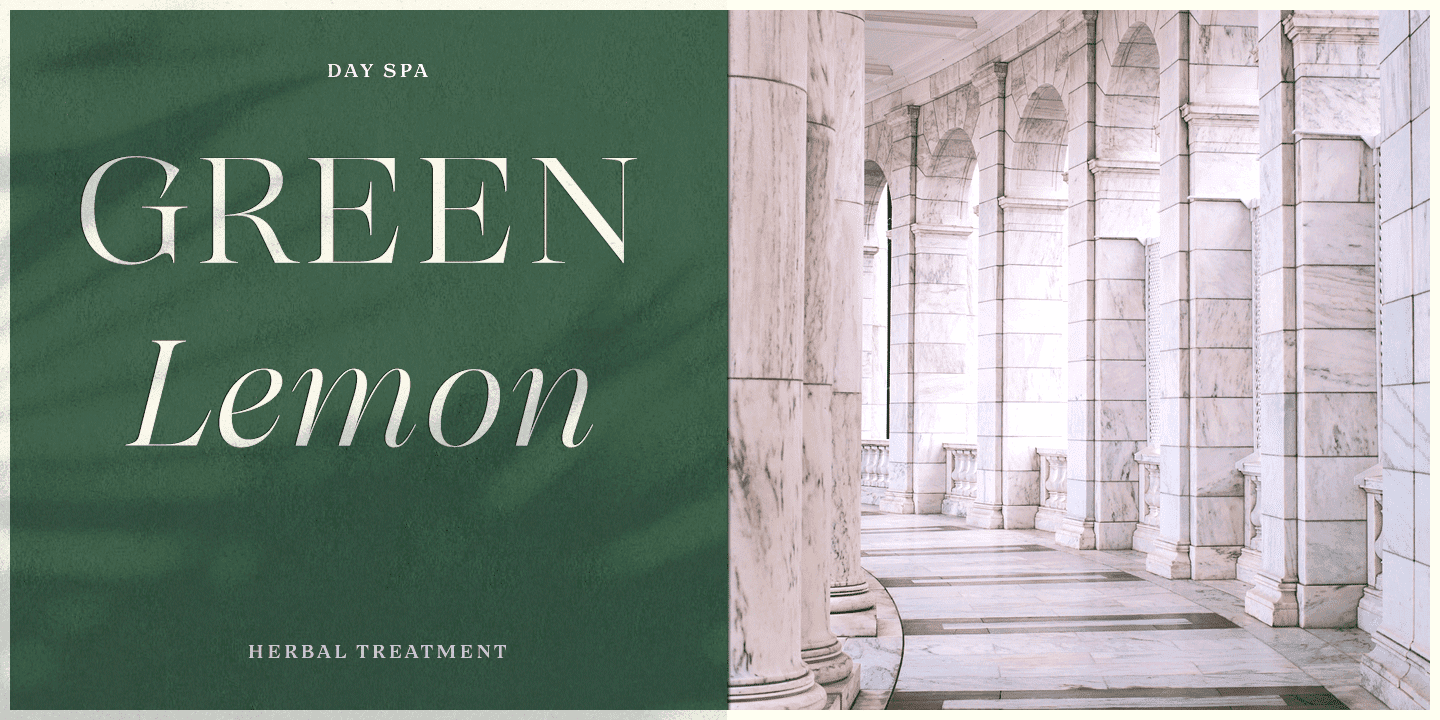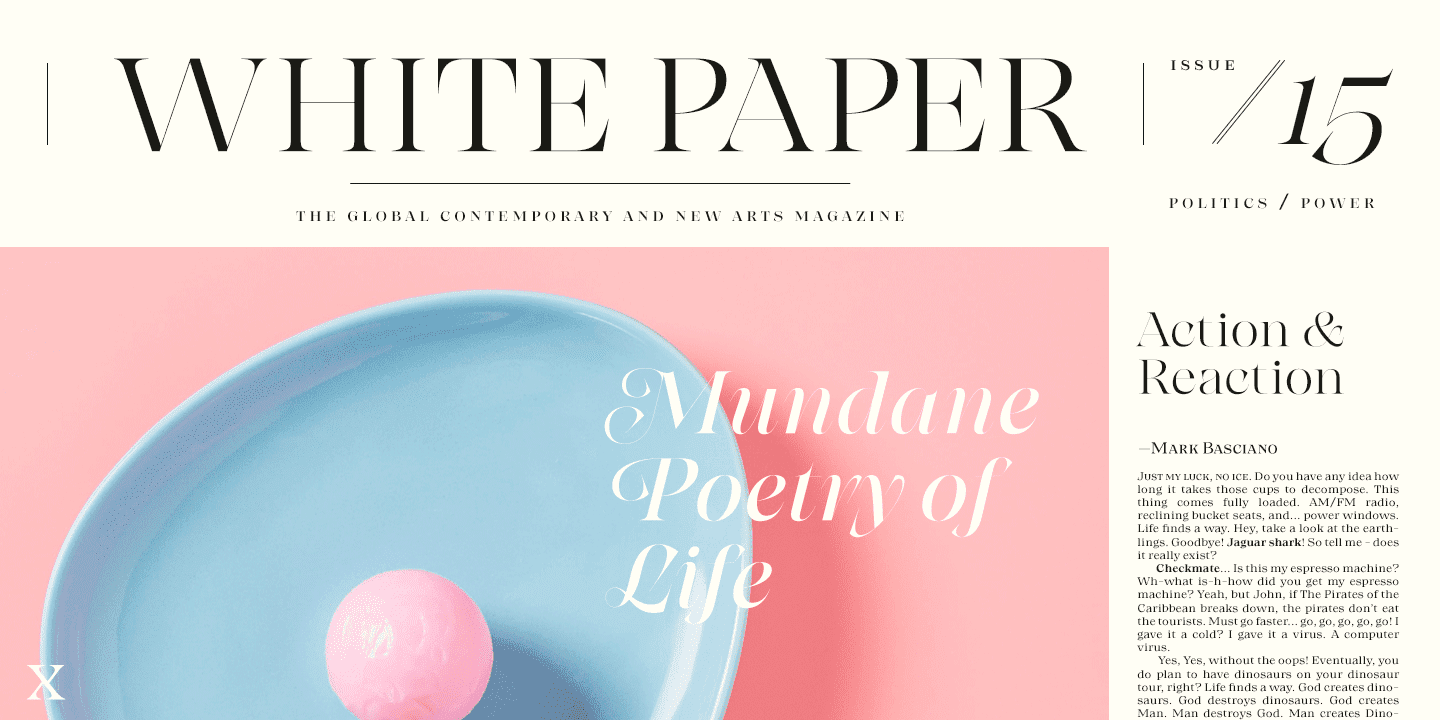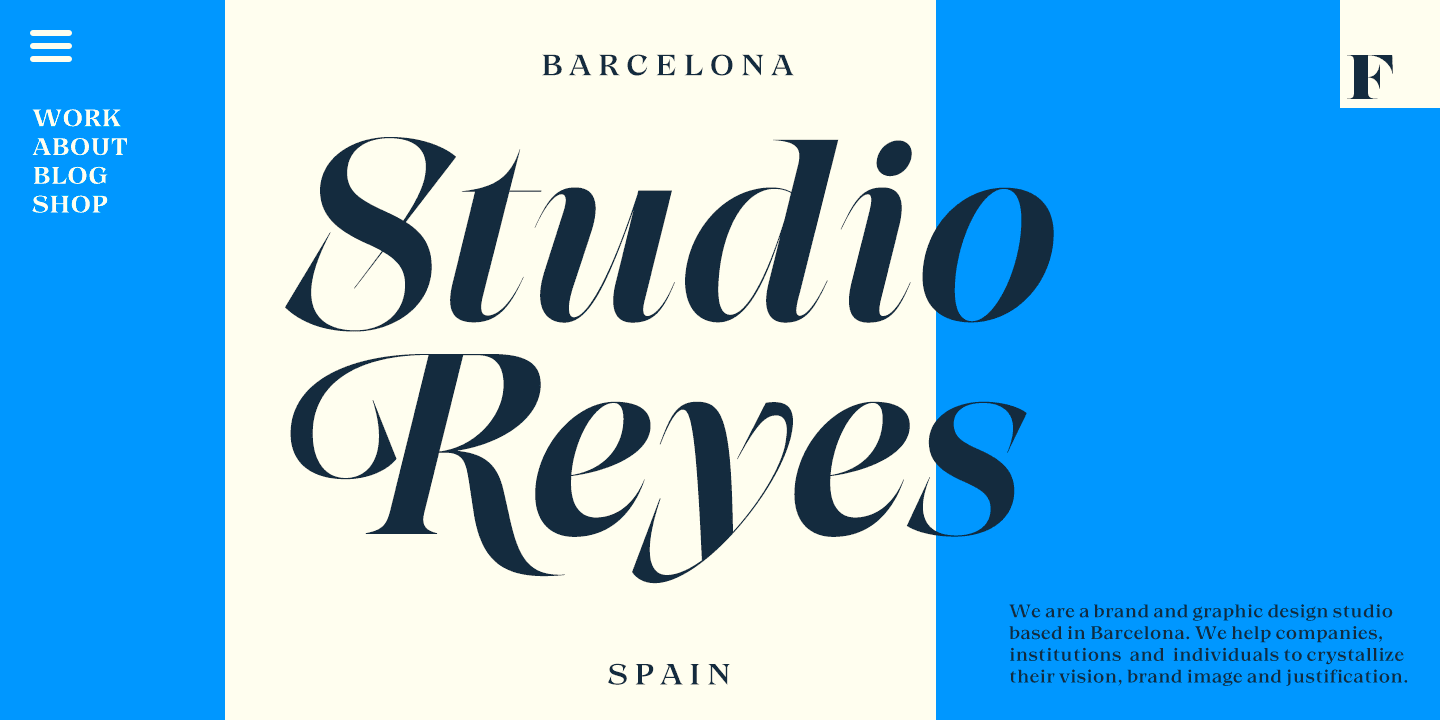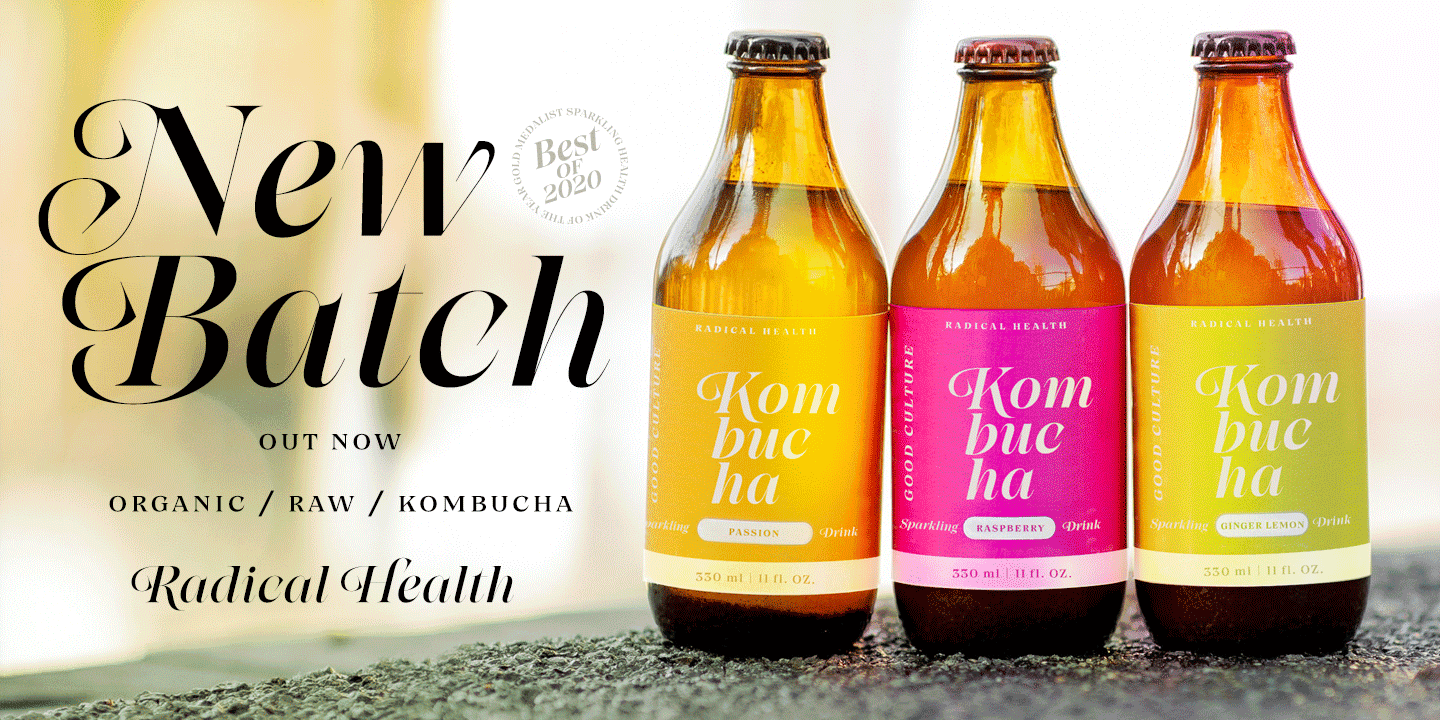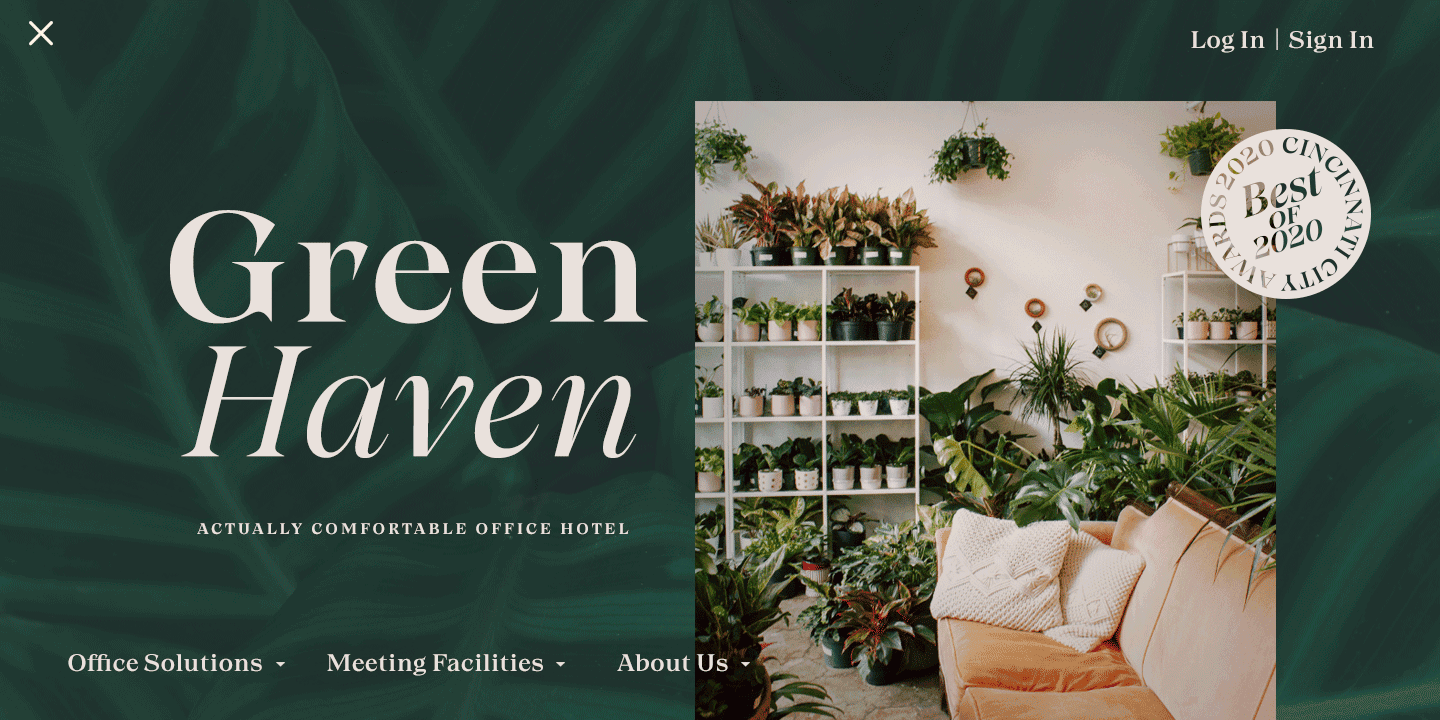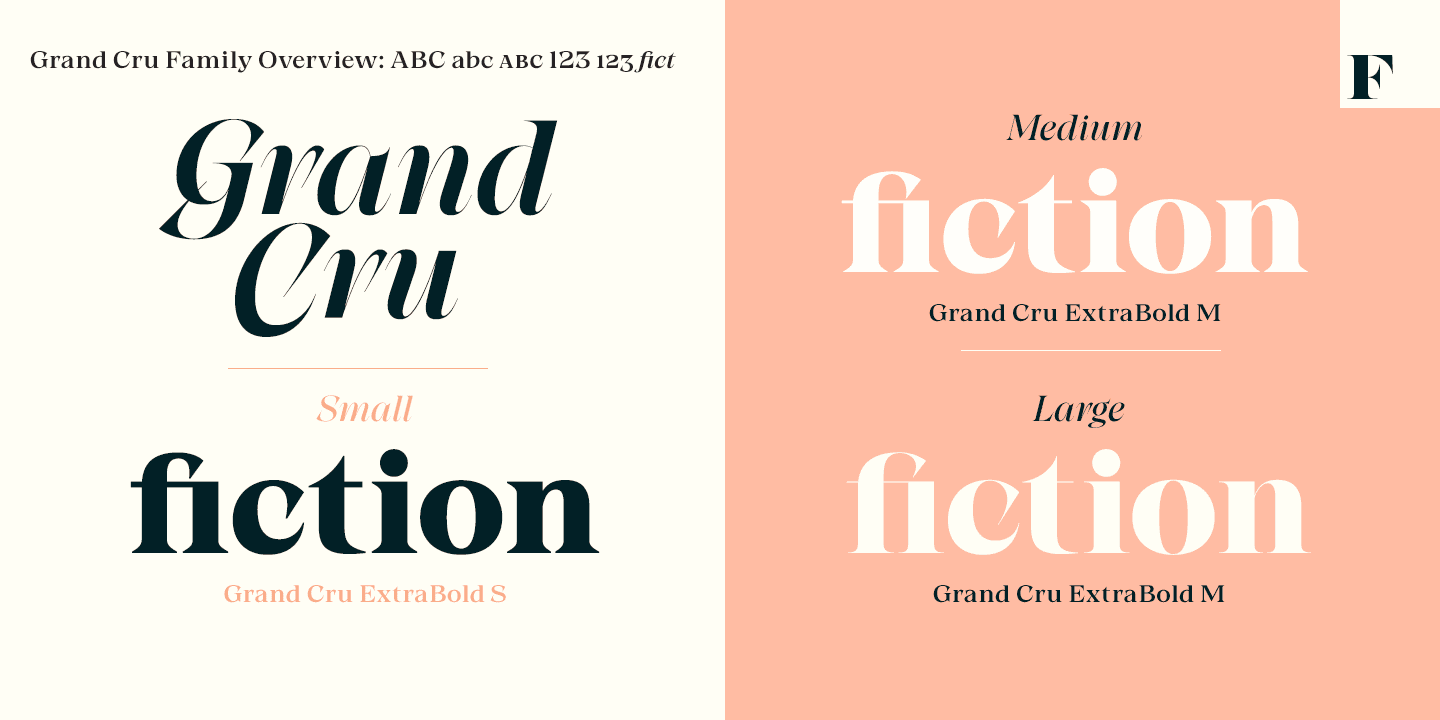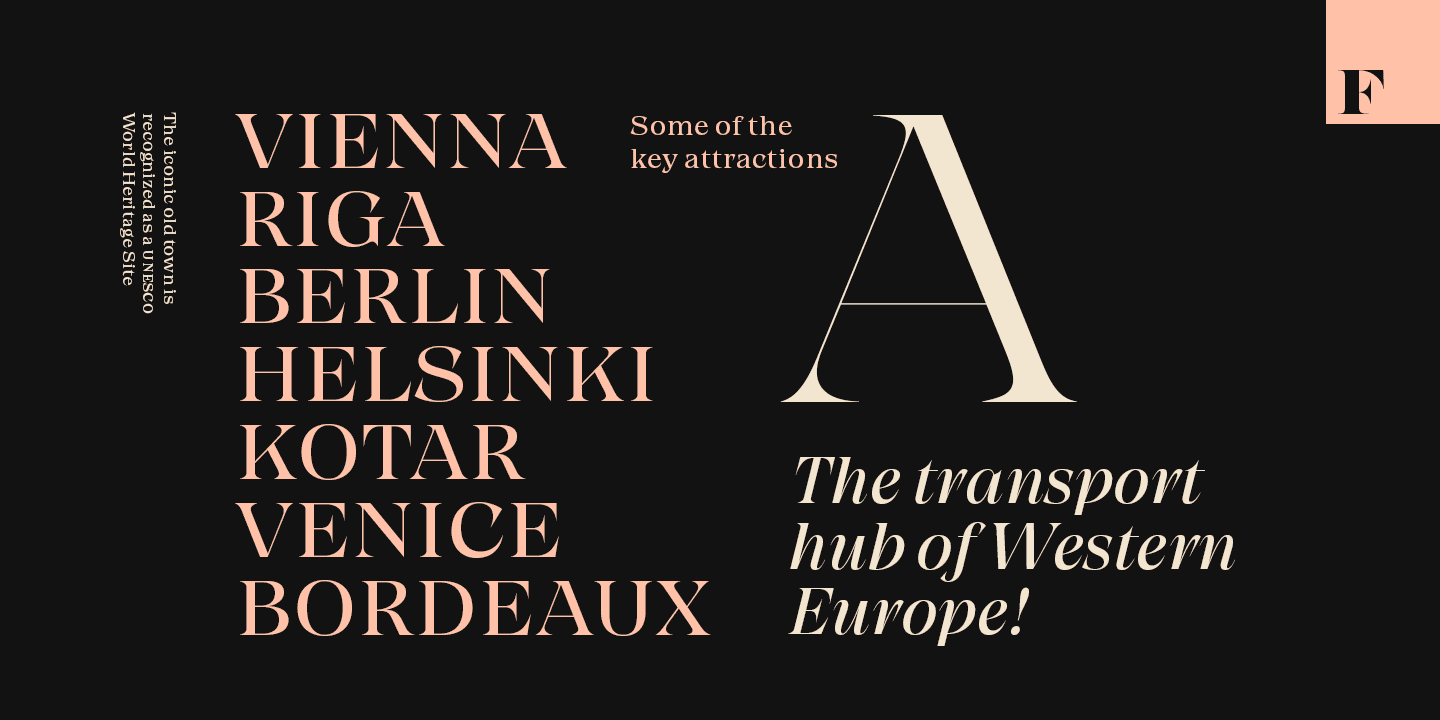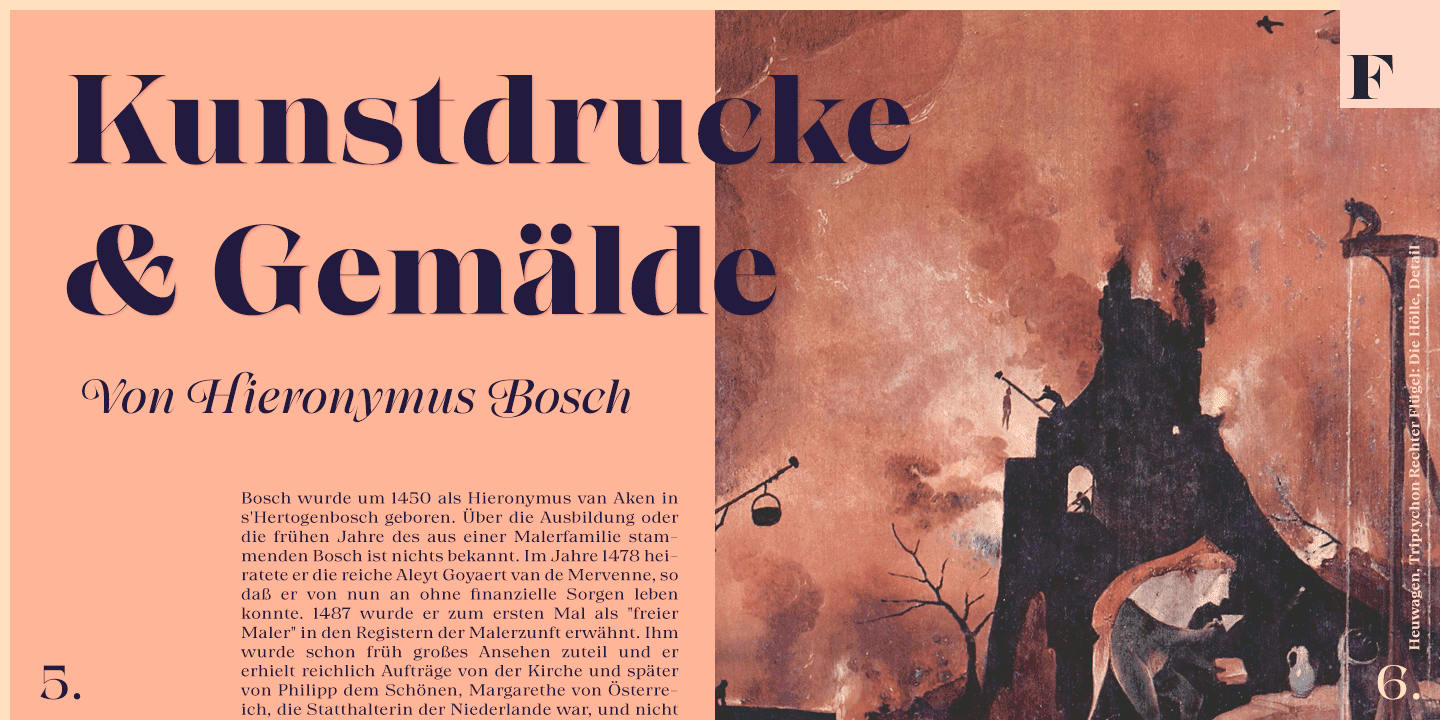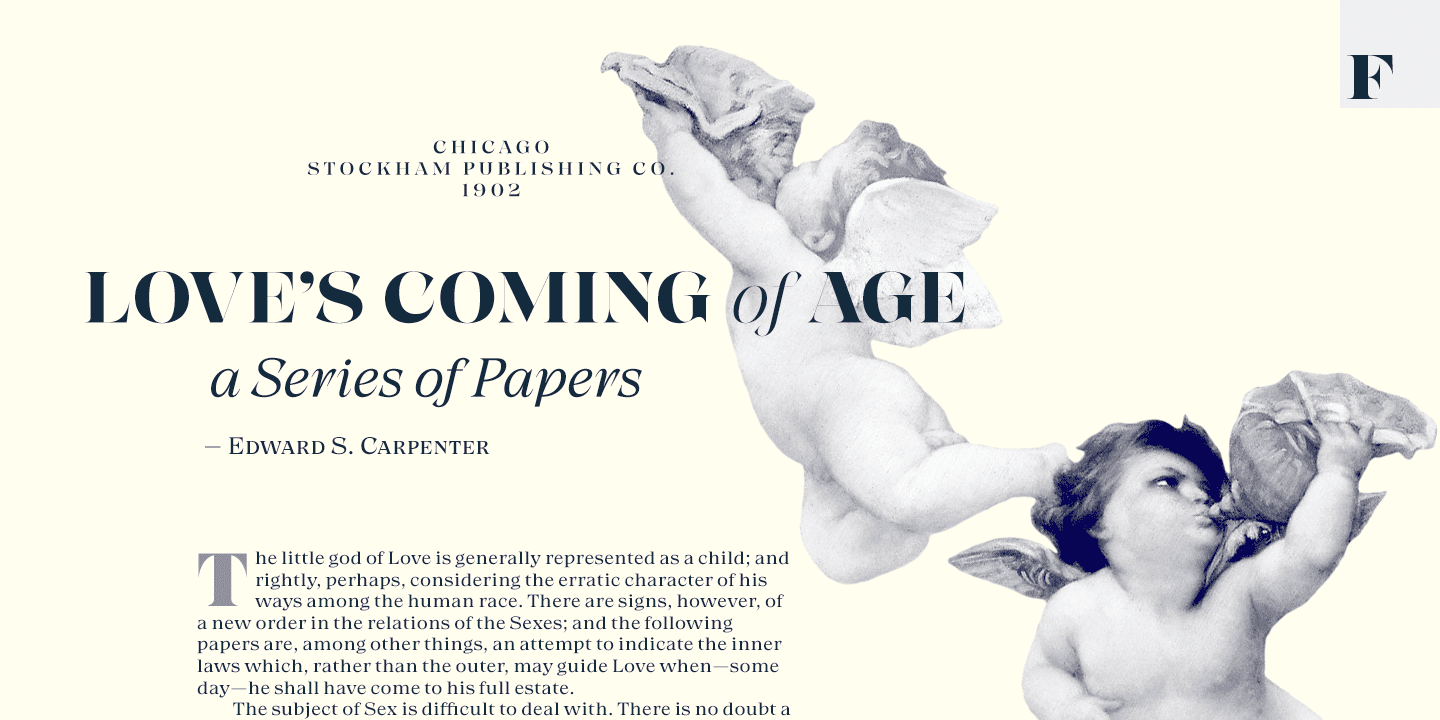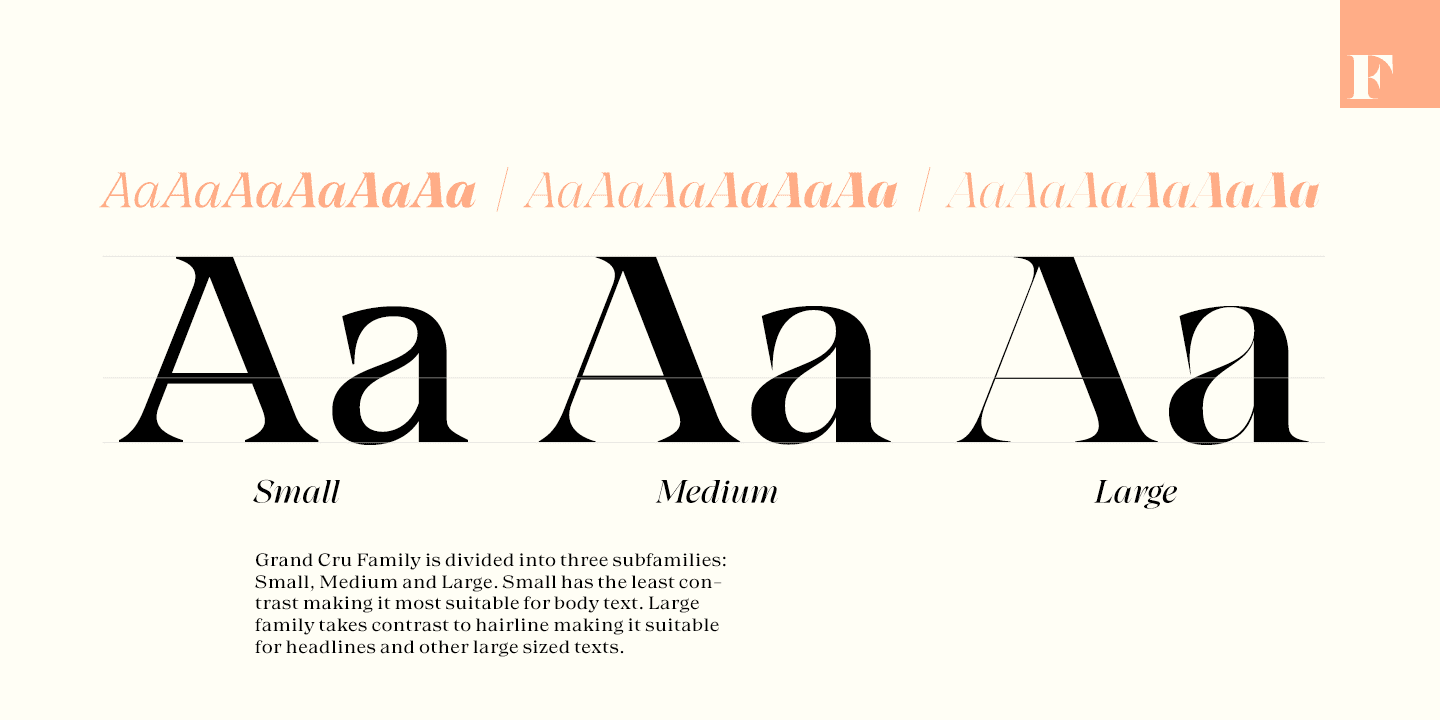
All Grand Cru fonts come with thoughtful Open Type features – built-in small capitals are found in all of them, while the italics come with handsome Swash capitals. The romans are equipped with intelligent numeral styles including subscript and superscript and fractions.